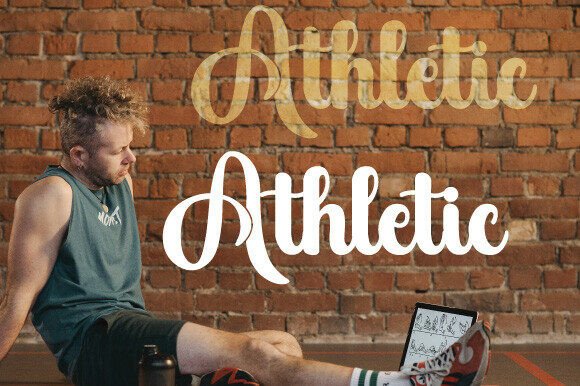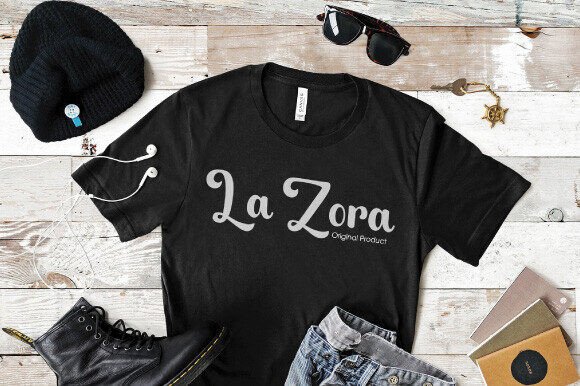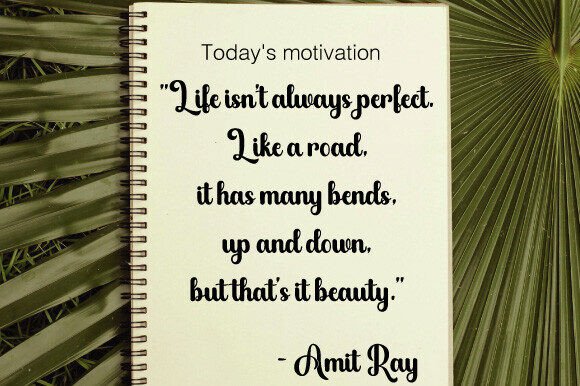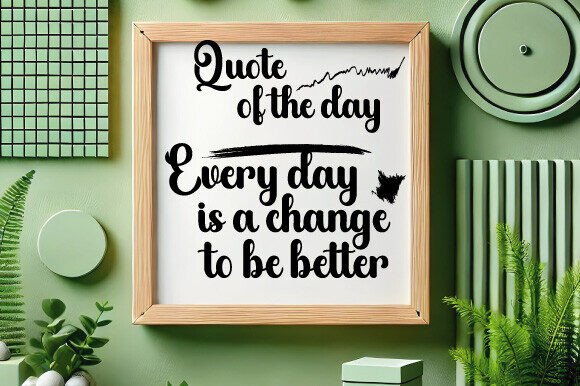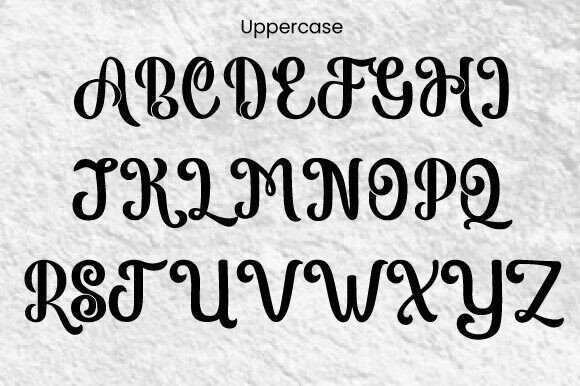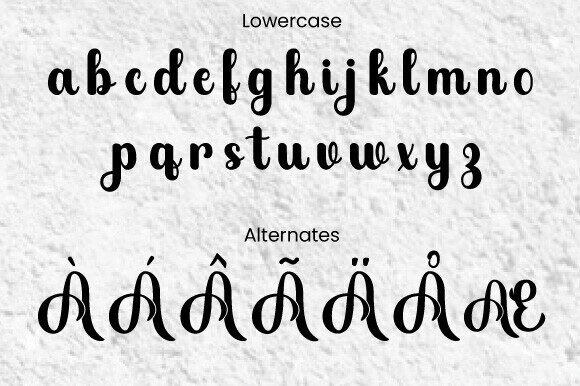
Borage Font: Elevate Your Designs with a Touch of Elegance
In the world of typography, fonts play a crucial role in conveying the tone and personality of a design. For designers and crafters seeking a typeface that exudes simplicity and sophistication, Borage Font is an excellent choice. This beautiful handwritten font boasts soft curves and a natural flow, making it an ideal fit for a wide range of design concepts.
The Charm of Borage Handwritten Font
Borage Font is a stunning example of a handwritten typeface that strikes the perfect balance between simplicity and elegance. Its soft, flowing curves give it a warm and inviting feel, making it perfect for designs that require a personal touch. The font’s natural flow and subtle imperfections evoke a sense of human touch, adding a layer of authenticity to any design.
One of the standout features of Borage Font is its incredible versatility. It can seamlessly integrate into a myriad of design concepts, from branding and packaging to logos, titles, and wedding designs. Whether you’re creating invitations, signs, or social media graphics, this font is sure to elevate your designs to the next level.
For designers and crafters, Borage Font is a dream come true. Its unique blend of simplicity and sophistication makes it an excellent choice for a wide range of projects. Here are just a few ways you can use Borage Font to take your designs to the next level:
- Branding: Create a lasting impression with Borage Font’s elegant and sophisticated look. Use it for logos, business cards, and other marketing materials to establish a strong brand identity.
- Packaging: Add a touch of elegance to your product packaging with Borage Font. Its soft curves and natural flow make it perfect for labels, tags, and other packaging materials.
- Wedding Designs: Make your wedding designs truly special with Borage Font. Use it for invitations, wedding programs, and other stationery to create a romantic and memorable atmosphere.
- Social Media Graphics: Take your social media graphics to the next level with Borage Font. Its clean and elegant look makes it perfect for creating engaging and shareable content.
Why Choose Borage Font?
With so many fonts to choose from, why should you choose Borage Font? Here are just a few reasons why this font stands out from the rest:
- Unique and Elegant: Borage Font boasts a unique and elegant look that will set your designs apart from the rest.
- Highly Versatile: This font can be used for a wide range of design concepts, making it an excellent addition to any designer’s toolkit.
- Easy to Read: Borage Font is highly legible, making it perfect for designs that require a clear and concise message.
In conclusion, Borage Font is a beautiful and versatile typeface that is perfect for designers and crafters seeking a simple yet sophisticated look. Its soft curves and natural flow make it an excellent choice for a wide range of design concepts, from branding and packaging to wedding designs and social media graphics. With its unique blend of elegance and simplicity, Borage Font is sure to elevate your designs to the next level.